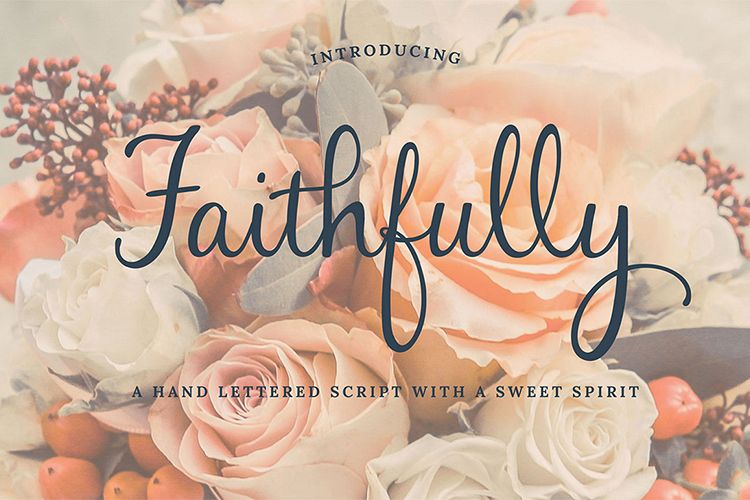
Faithfully - Hand Lettered Script Font
Faithfully is a script font with a sweet and charming style, that is beautiful on projects ranging from stationery to wedding invitations, save the dates, baby announcements, thank you notes, and so much more. The versatility of this font will make it great for so many of your projects.
Love to make handmade gifts for Holidays, Birthdays, or other events for friends and family? This font is a great choice for holiday cards and gift tags and photo overlays and looks beautiful cut with digital cutting machines. Faithfully Font Features and Style Additions
• set of upper and lowercase script letters, numbers, punctuation
• 7 Standard Ligatures and 1 Discretionary Ligature
• 10 Initial Forms and 9 End Forms
• 4 Stylistic Alternates